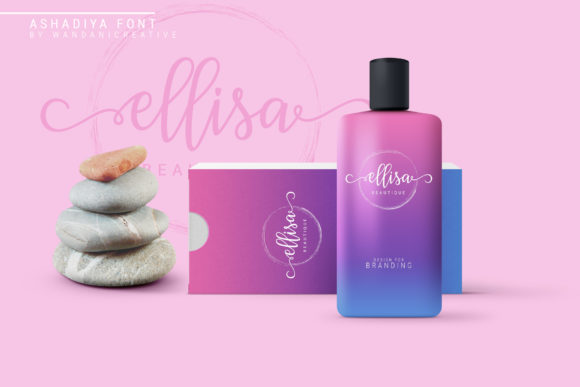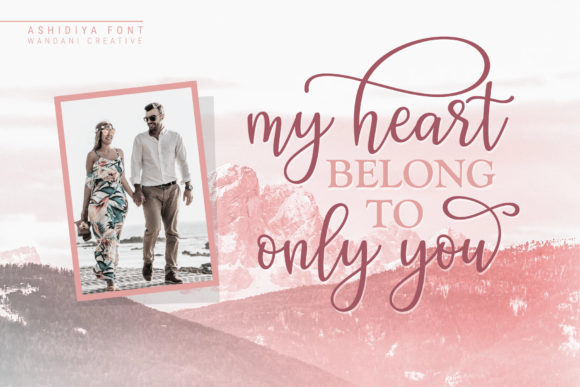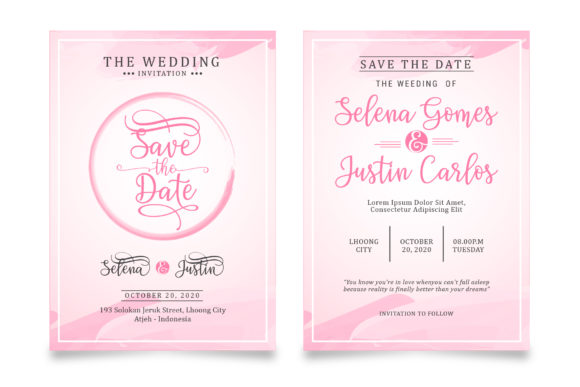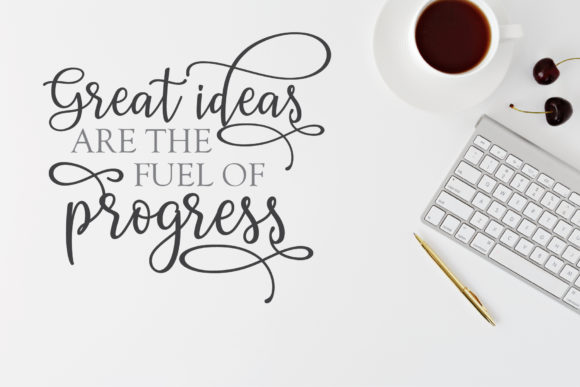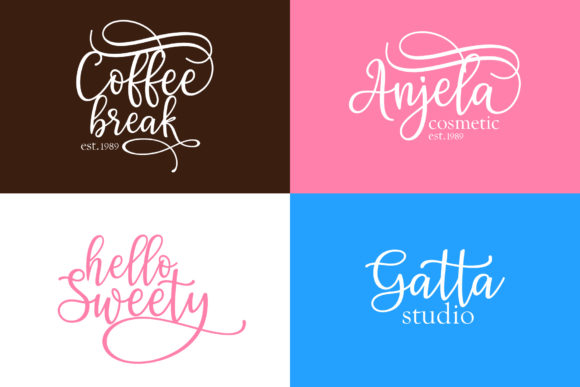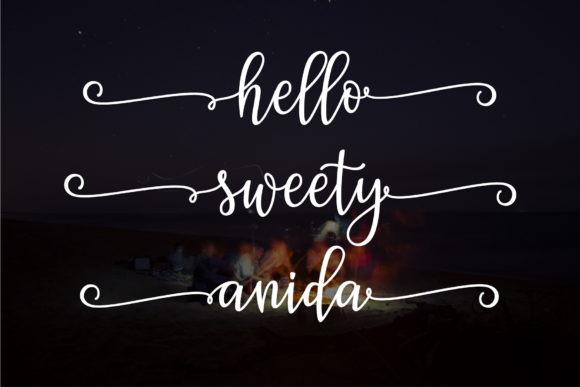
The Ultimate Guide to Ashadiya Font: Elevate Your Designs with Elegance
I’ll never forget the time I was working on a wedding invitation project, and my client asked for a font that would make their special day feel like a fairytale. I scoured the internet, tried countless fonts, but nothing seemed quite right. That was until I stumbled upon Ashadiya Font. With its bold swashes and elegant flair, it was love at first sight! In this article, I’ll share my experience with Ashadiya Font, its features, and how to make the most of it in your designs.
A Honest Review of Ashadiya Font
• ✨ Elegant and sophisticated design that’s perfect for high-end projects
• ✅ Extensive character set, including support for multiple languages
• 💫 Beautiful swashes and stylistic alternates to add a touch of personality to your designs
• 📚 Versatile and adaptable to various design styles, from modern to vintage
While Ashadiya Font is an amazing addition to any design project, there are a few things to keep in mind:
• ⚠️ Some users may find the font a bit too ornate for certain projects, such as minimalist designs
• 🤔 The font’s bold swashes may not be suitable for very small font sizes or body text
The Story Behind Ashadiya Font
Ashadiya Font was designed by a team of talented typographers who wanted to create a font that would evoke the elegance and sophistication of traditional calligraphy. Inspired by the beauty of handwritten scripts, Ashadiya Font was crafted to bring a touch of luxury to any design project. Whether you’re a designer, crafter, or creative hobbyist, Ashadiya Font is sure to become a favorite in your font collection.
What type of projects is Ashadiya Font best suited for? Ashadiya Font is perfect for a wide range of projects, including greeting cards, branding, stationery design, social media, packaging, magazine layouts, and prints.
Is Ashadiya Font suitable for body text? While Ashadiya Font is beautiful for headings and titles, it may not be the best choice for body text due to its ornate and decorative nature.
Does Ashadiya Font support multiple languages? Yes, Ashadiya Font has an extensive character set that supports multiple languages, making it a great choice for international projects.